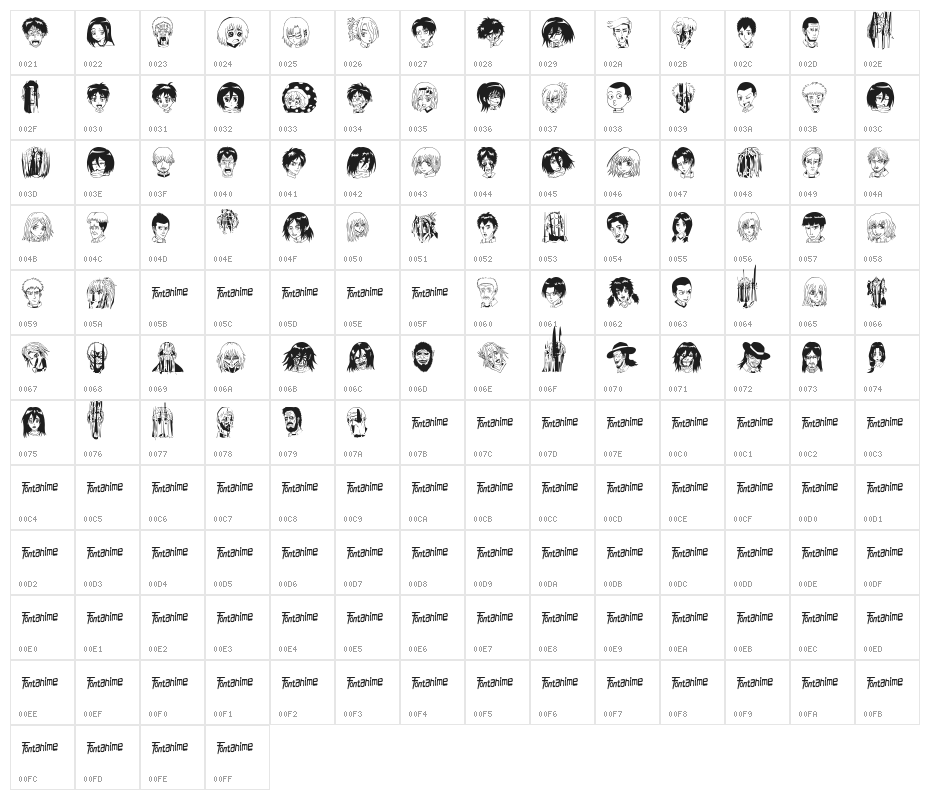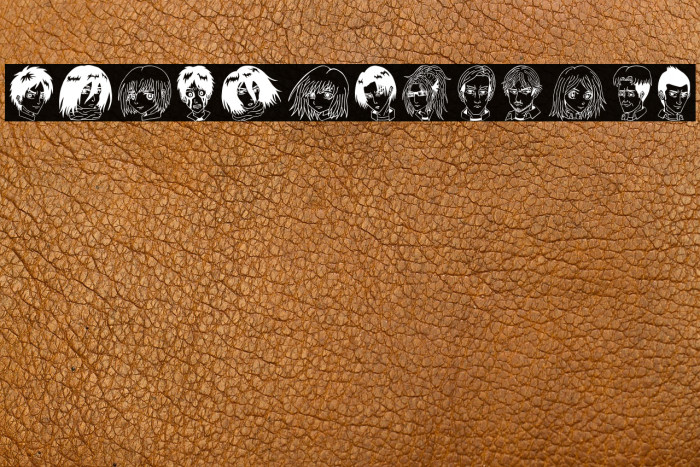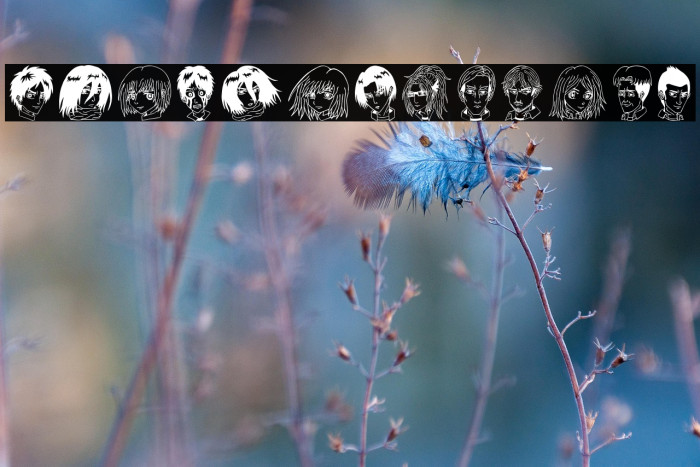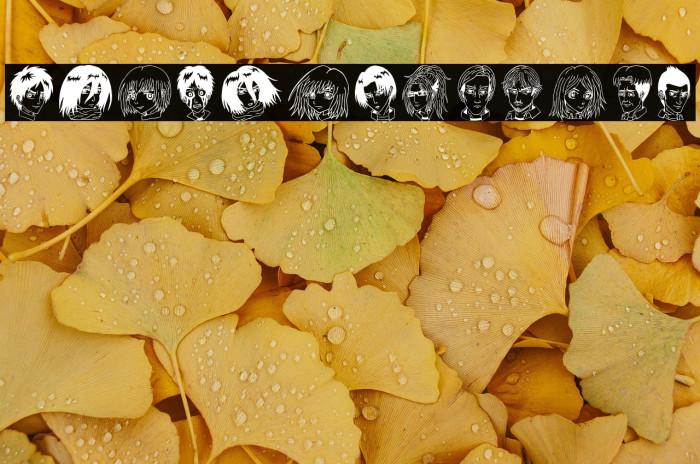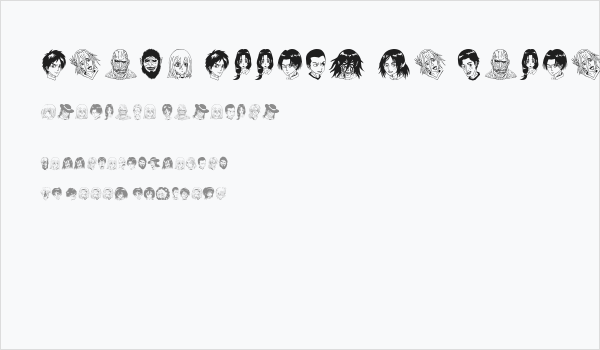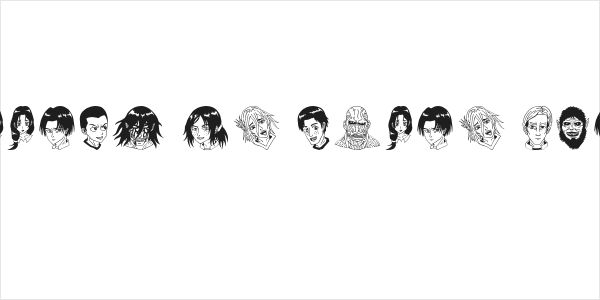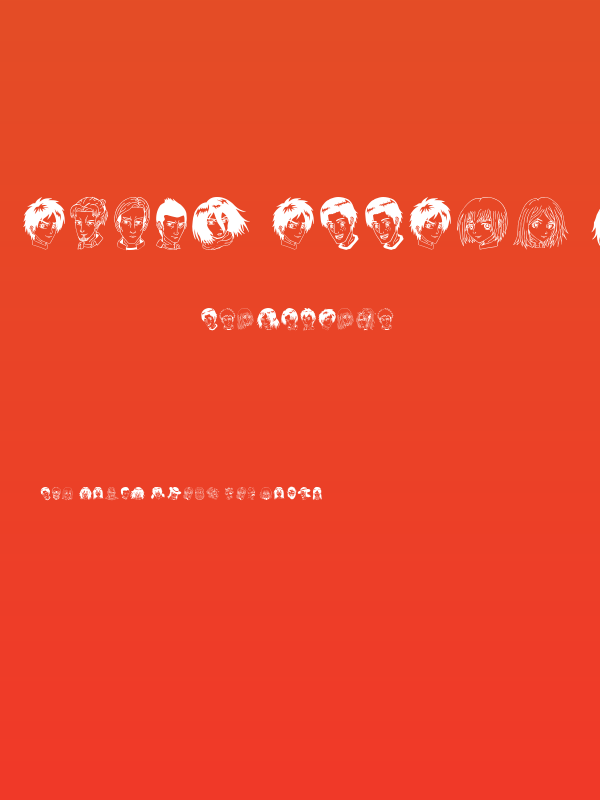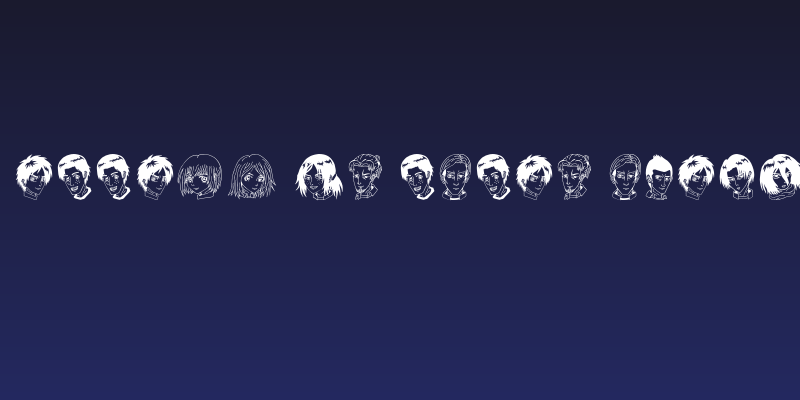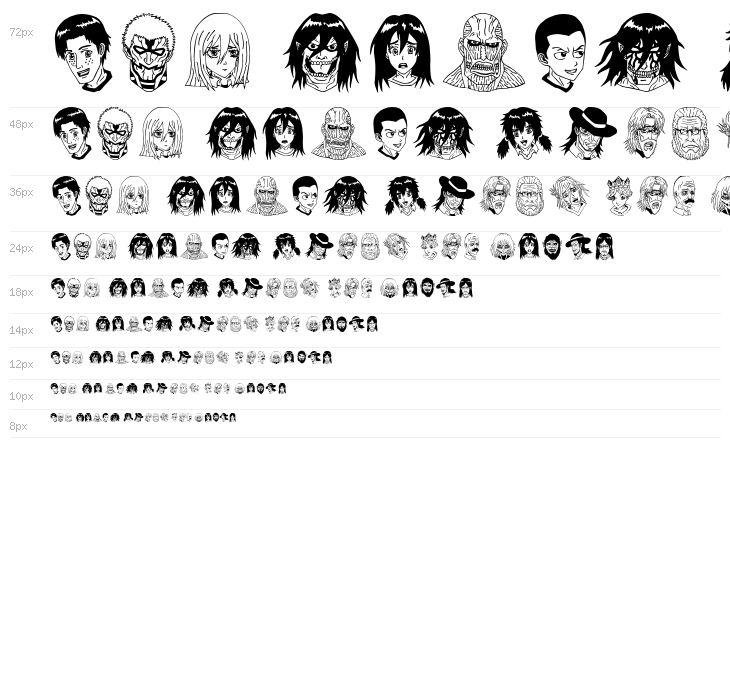
Anime Attack On Titan Image Bold Font
Anime Attack On Titan Image Bold Description
A decorative display typeface featuring bold, highly stylized manga/anime character illustrations in place of traditional alphanumeric glyphs, with each character rendered in a detailed, expressive black-and-white line art style.
| Overall Style | Decorative, Thematic, Playful |
| Use Case | Headlines, Logos, Posters, Themed graphics |
| Proposed Projects | Posters, fan art, themed party invitations, comic book titles, merchandise, event branding. |